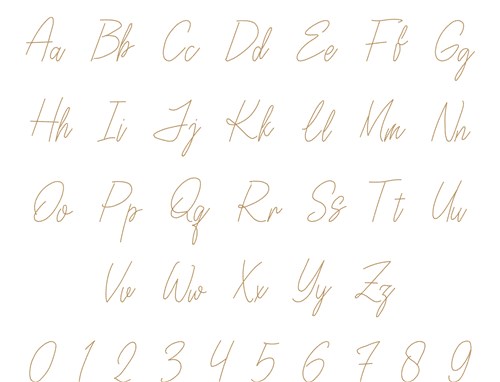
Satin Stripes is happy to present Curvia Stitch Embrilliance Embroidery Font - Elegant Handwriting Script - BX font machine embroidery font which has Cursive script machine embroidery font with flowing, connected letters, ideal for personal projects like monogramming towels. Available in BX font and Embrilliance format. included. If you would like to view more embroidery fonts and alphabets please search our embroidery fonts page.
Curvia Stitch Embrilliance Embroidery Font - Elegant Handwriting Script - BX font